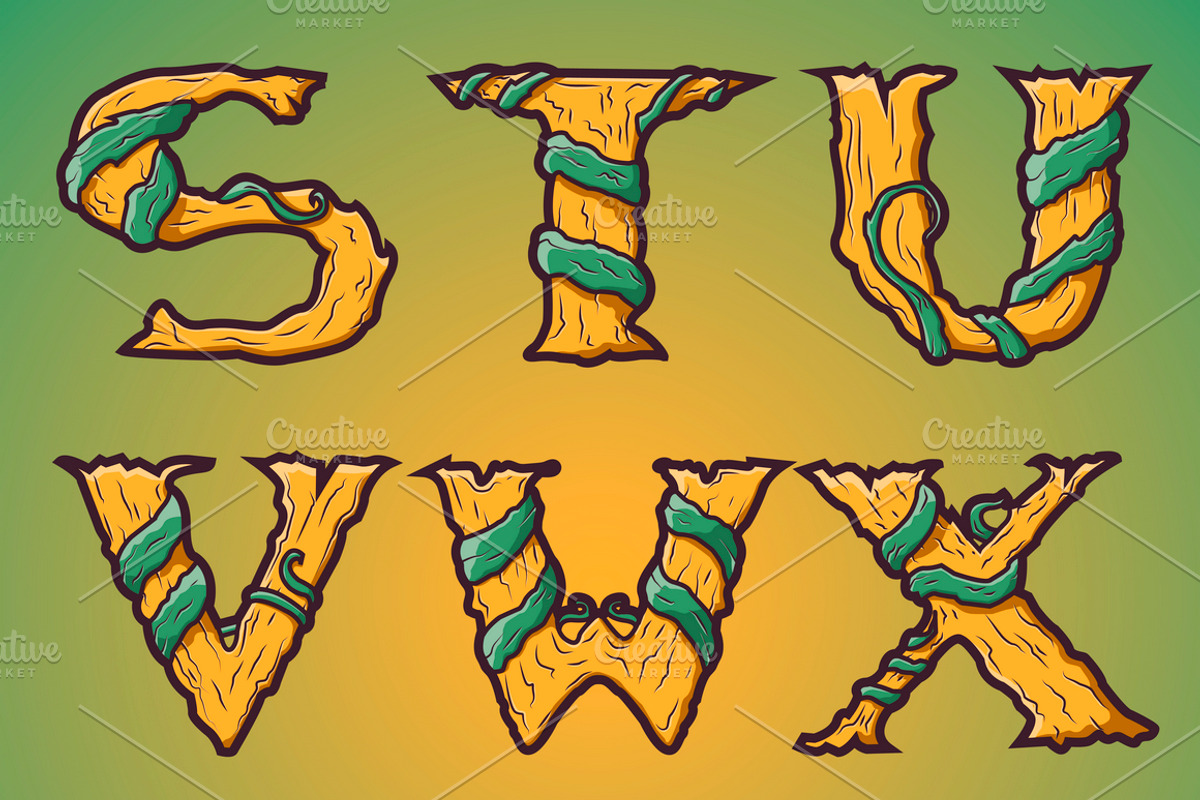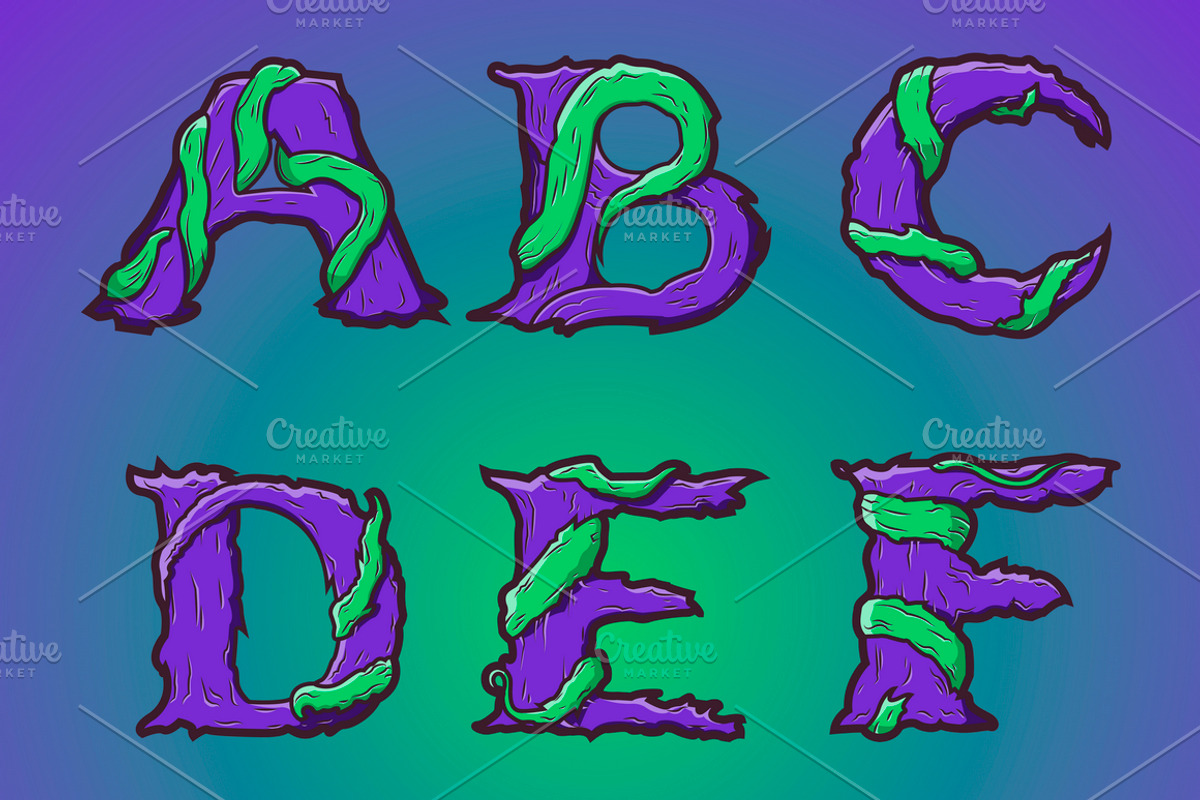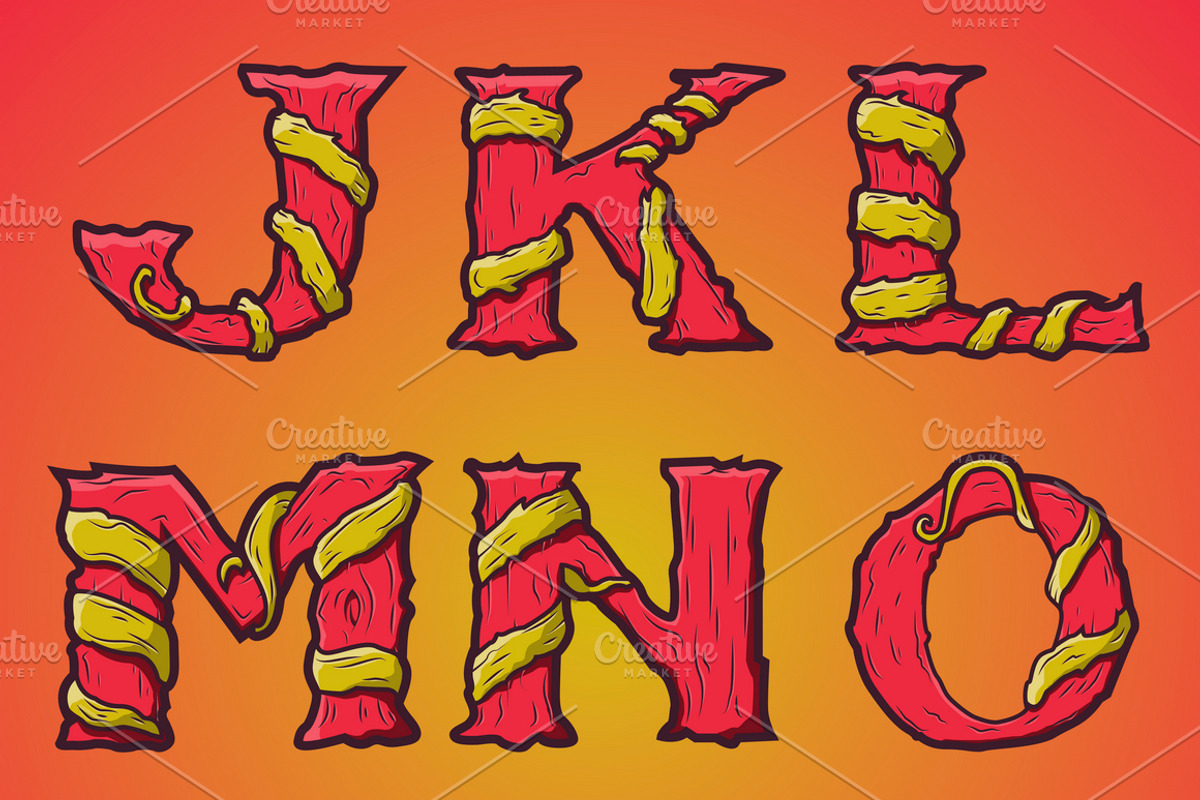
Halloween Font
Halloween Font by Snitovets is a font selected for branding, posters, packaging, typography.
Why Halloween Font is worth a look
Halloween Font by Snitovets fits naturally into Branding, posters, packaging, typography.